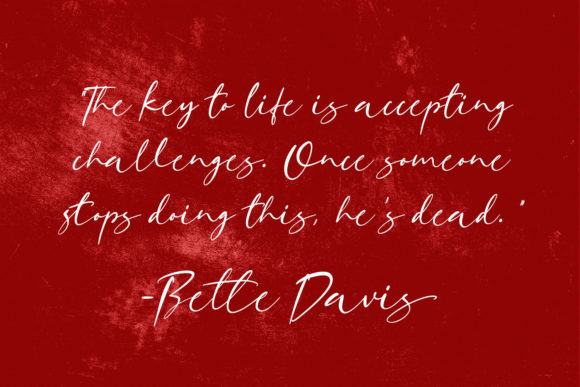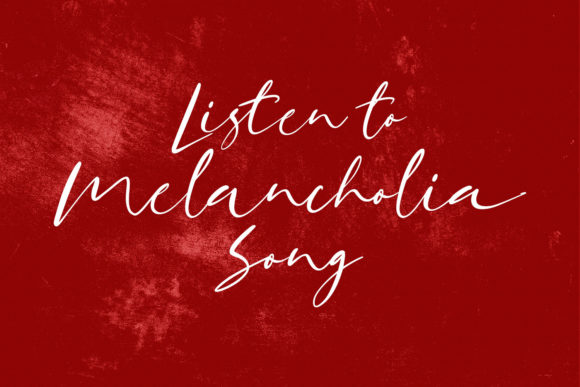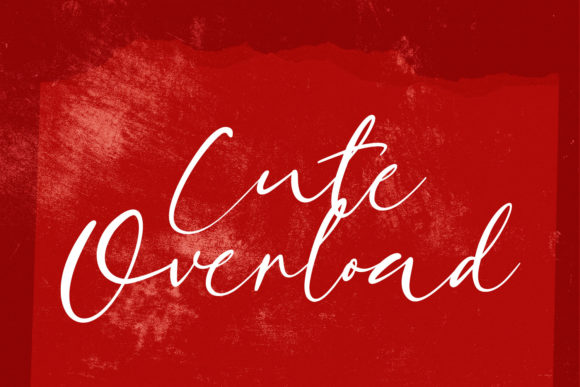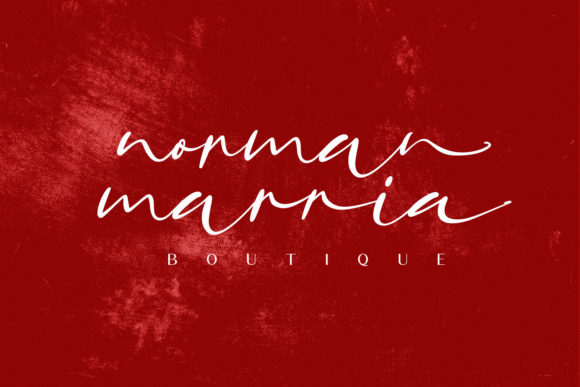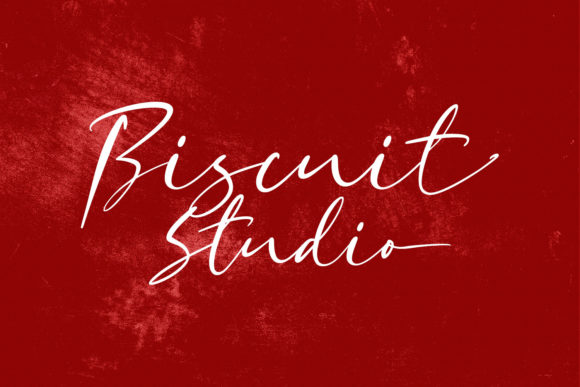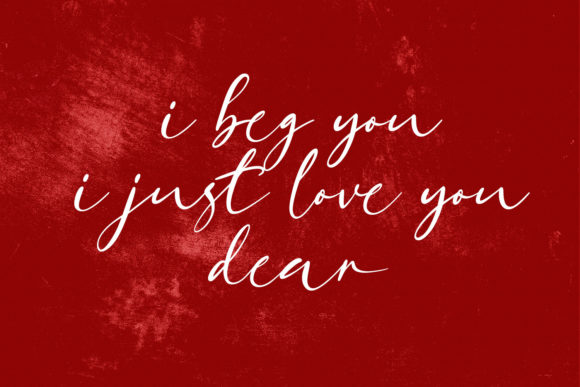
Introduction to Nostyx Script Font
Have you ever stared at a blank canvas, wondering where to begin your next creative project? The blank page can be daunting, but the right tools can spark inspiration. For designers seeking a unique touch, the Nostyx Script Font is a game-changer. This elegant modern script font boasts high contrast strokes, playful characters, and ligatures that add a touch of whimsy.
With the Nostyx Script Font, designers can create stunning work that stands out from the crowd. Whether you’re crafting a logo, designing social media graphics, or working on a book title, this versatile font is the perfect design resource. Its high-quality design and transparent background make it easy to use, and with a free download available, you can get started right away.
As a valuable addition to any designer’s toolkit, the Nostyx Script Font offers endless creative possibilities. Its stylish aesthetic and customizable options make it an ideal choice for designers looking to elevate their work and make a lasting impression.
Key Features of Nostyx Script Font
- High-quality, hand-drawn design perfect for creative projects and personal use.
- Designed with a unique, cursive style that adds a touch of elegance to any design project.
Honest Review: Nostyx Script Font
As a designer, I’m always on the lookout for unique and high-quality design resources to elevate my creative projects. The Nostyx Script Font is one such gem that I’ve recently had the pleasure of working with.
What works well: ✨ The font is incredibly versatile and can be used for a wide range of creative projects, from elegant wedding invitations to modern branding designs. The script font is beautifully crafted with intricate details and smooth connections, making it perfect for adding a touch of sophistication to any design. The free download option is also a major plus, making it an excellent addition to any designer’s toolkit.
Some limitations: ⚠️ While the font is high-quality, it does have a slightly limited character set, which may be a concern for designers who need to use specific characters or glyphs. Additionally, the transparent background option can sometimes be a bit finicky, requiring some tweaking to get just right.
Overall, I’m thoroughly impressed with the Nostyx Script Font. Its unique style and high-quality design make it a valuable addition to any design resource library. While it may have some minor limitations, it’s an excellent choice for designers looking to add some flair to their creative projects.
- High-quality design with intricate details and smooth connections
- Transparent background option available
- Perfect for elegant wedding invitations and modern branding designs
Common Use Cases for Nostyx Script Font
Nostyx Script Font is a versatile design resource that can be used in a variety of creative projects, such as wedding invitations, logos, and social media graphics. Its high-quality design and transparent background make it a great choice for designers looking to add a touch of elegance to their work.